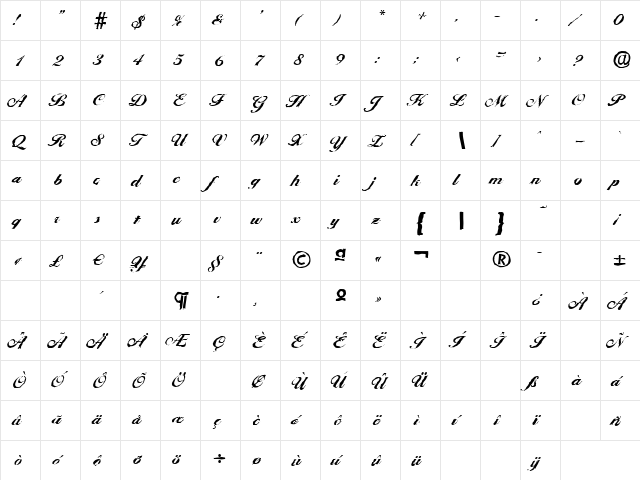
NicholasBeckerAntique-ExtraBol d-Regular Font Preview
NicholasBeckerAntique-ExtraBol d-Regular
NicholasBeckerAntique-ExtraBol d-Regular Font Details
Design Context for NicholasBeckerAntique-ExtraBol Typeface
NicholasBeckerAntique-ExtraBol has the warm character of retro typography — evoking diners, record sleeves, and the golden age of print advertising.
Font Pairing: Combine NicholasBeckerAntique-ExtraBol with a simple slab or neutral sans — period-accurate companions reinforce the vintage feel without competing for attention.
Pro Tip: Use NicholasBeckerAntique-ExtraBol for headlines and pull quotes rather than body copy — its personality is best appreciated in short, focused bursts.